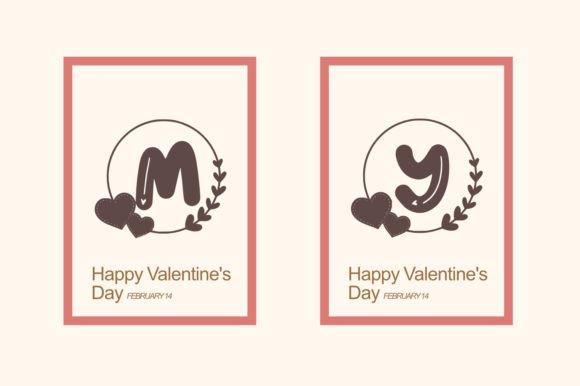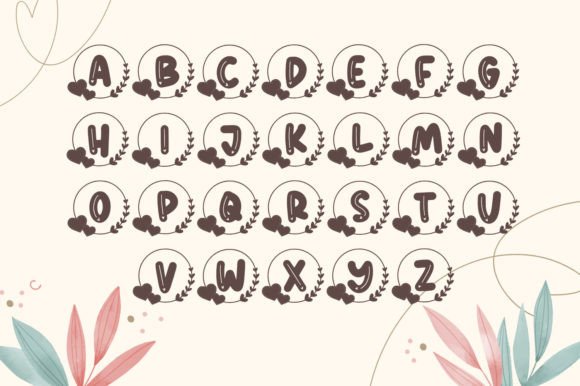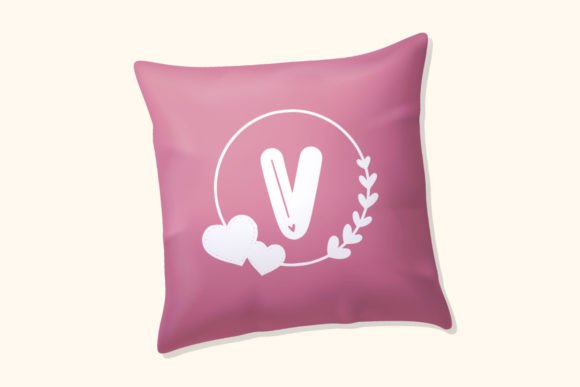
Introduction to Monogram Circle Heart Font
Do you remember the moment when you stumbled upon the perfect font for your creative project? The one that made all the difference and took your design from ordinary to extraordinary? For many of us, this moment is what drives our passion for crafting and designing. It’s that spark of excitement that makes us want to create more, experiment, and push the boundaries of our imagination.
For designers and crafters, finding the right font can be a game-changer. It’s a design resource that can elevate your work and make it stand out from the crowd. That’s why we’re excited to introduce you to the Monogram Circle Heart Font, a timeless and delicate decorative font that’s sure to take your projects to the next level. With its gorgeous capital letters and transparent background, this high-quality font is a must-have for any creative enthusiast.
Key Features of Monogram Circle Heart Font
- High-quality vector design, ideal for use in creative projects that require a unique and eye-catching font.
- Comes with a transparent background, allowing for seamless integration into various design applications.
- The font is designed in a circular, heart-shaped monogram style, making it perfect for creating custom logos, invitations, and other decorative elements.
- High-resolution design, suitable for use in large-scale applications, such as billboards and signage, as well as small-scale projects like social media graphics and web design.
- Monogram Circle Heart Font is a unique and creative design element that can add a touch of personality to any project, making it a valuable addition to any design collection.
Honest Review: Monogram Circle Heart Font
I recently had the chance to work with the Monogram Circle Heart Font, and I must say, it’s a fantastic addition to any design project. This font is perfect for anyone looking to add a touch of elegance and sophistication to their creative project.
- ✨ High-quality design that is crisp and clean
- ✨ Perfect for projects that require a delicate, feminine touch
- ⚠️ Limited character set, may not be suitable for long-form text
- ⚠️ Not ideal for projects that require a bold, eye-catching font
Overall, I was impressed with the Monogram Circle Heart Font. The transparent background makes it easy to customize and use in a variety of design contexts. If you’re looking for a high-quality, elegant font for your next design project, this is definitely worth considering.